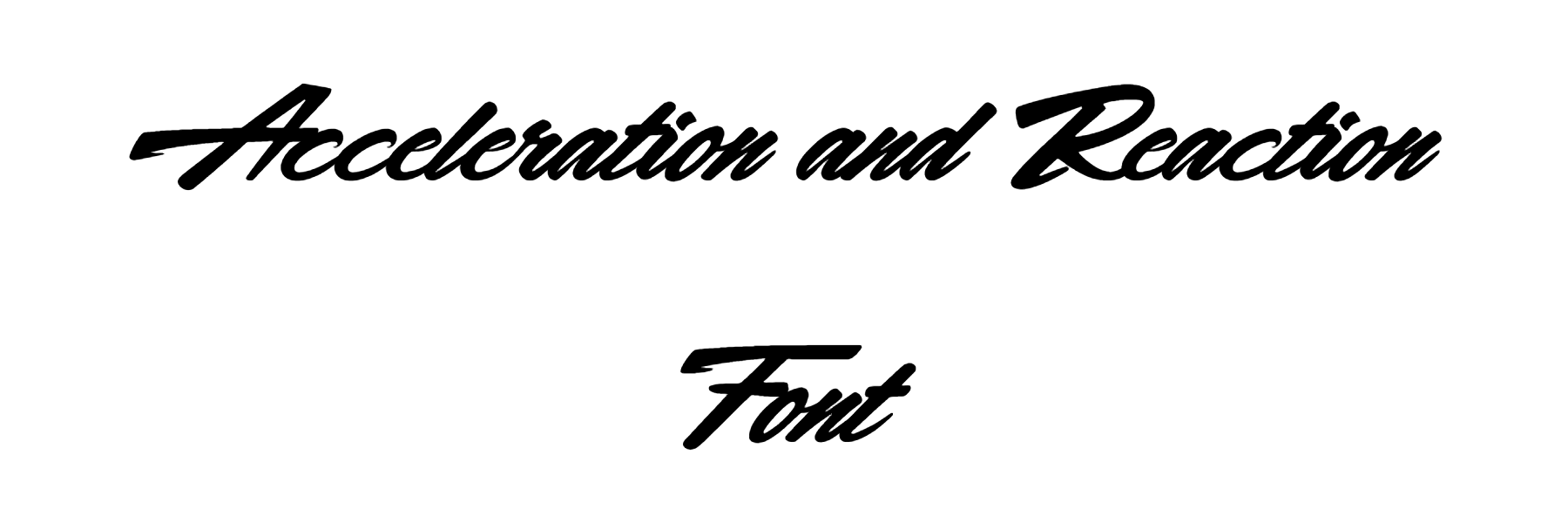
Acceleration and Reaction
Acceleration and Reaction is a calligraphy font designed by Cat.B and published by Cataleya Butcher. Its flowing, pen-made letters give names and short phrases a personal, polished look. You can download it for free and test it with your own words in the preview above.
- Designer: Cat.B
- Publisher: Cataleya Butcher
What You Can Type With Acceleration and Reaction
With complete upper and lowercase letters and all ten digits, Acceleration and Reaction is ready for real wording, not just a single headline. Common punctuation such as &, !, ? and @ is included as well. It also has the accented letters you need for Spanish, French, Portuguese and Italian.
Where Acceleration and Reaction Works Best
Think of Acceleration and Reaction for wedding invitations, certificates and elegant quotes. Its lowercase letters are small compared to the capitals, so set it a size or two bigger than usual. Script fonts read best in short bursts, so keep it to names, titles and one-line quotes. Skip all caps: script capitals are drawn to start a word, not to fill one.
Who designed Acceleration and Reaction font?
Does Acceleration and Reaction support accented letters?
Yes. Acceleration and Reaction includes the accented letters needed for Spanish, French, Portuguese and Italian, so it works for more than just English.